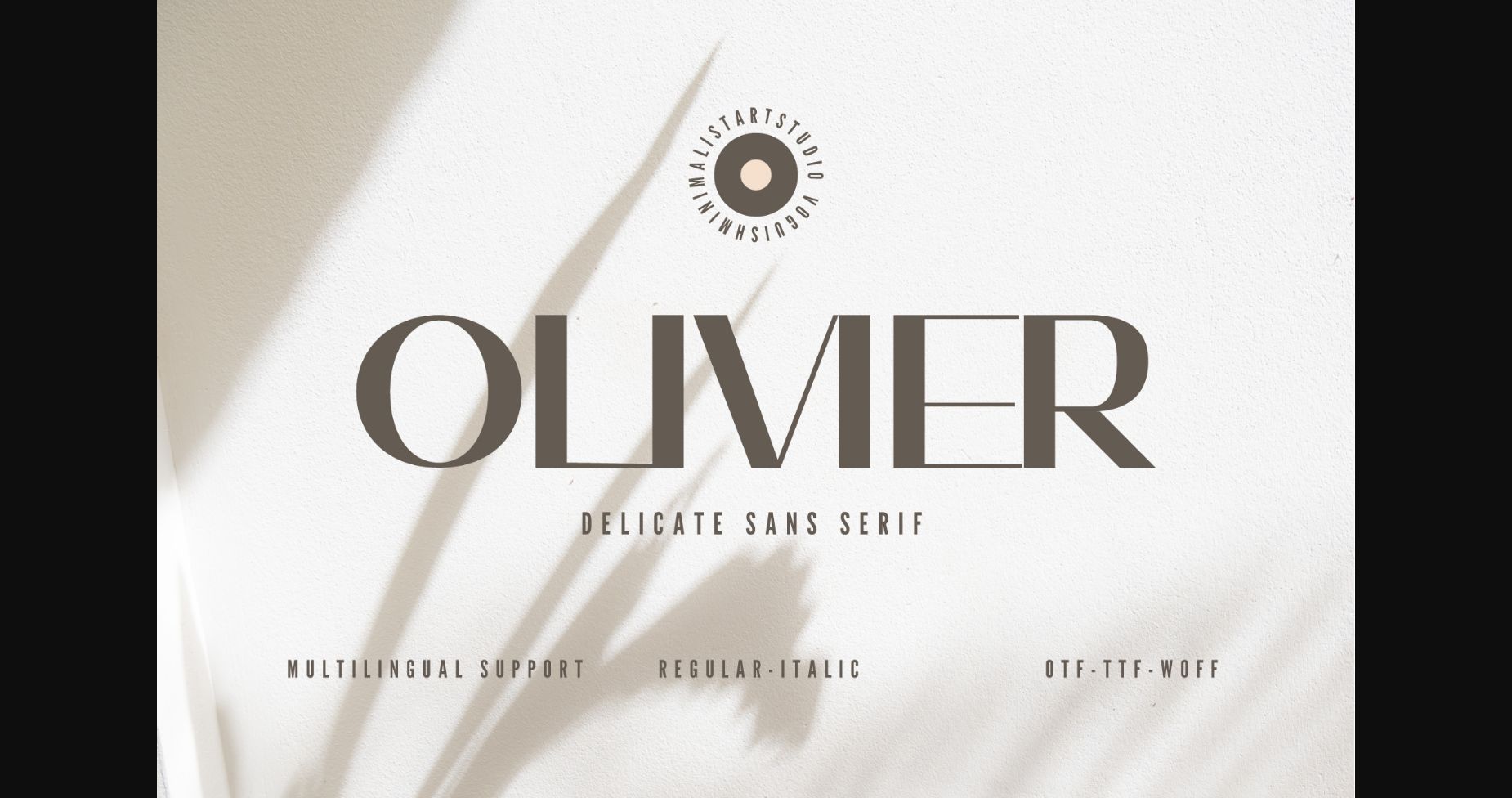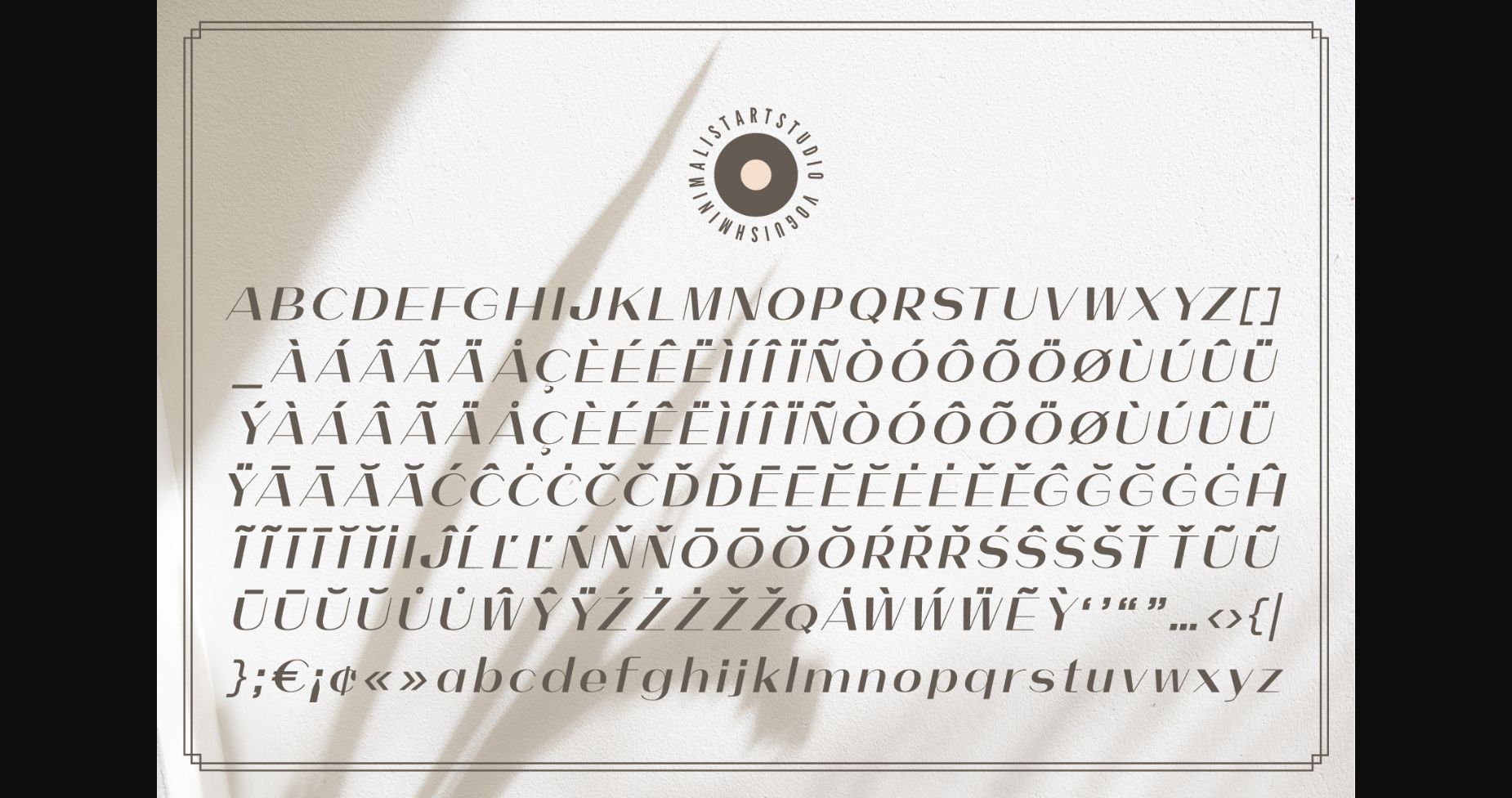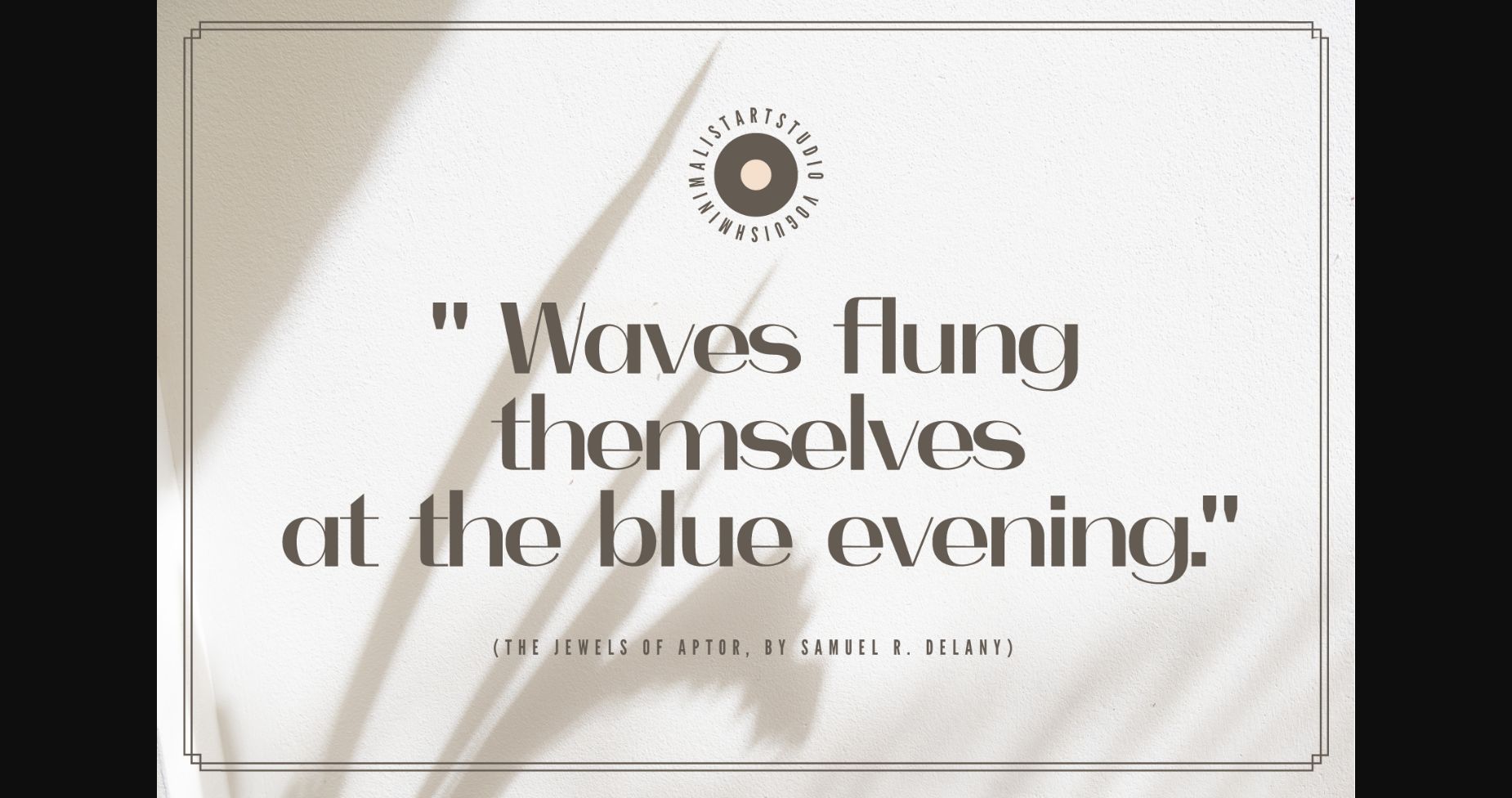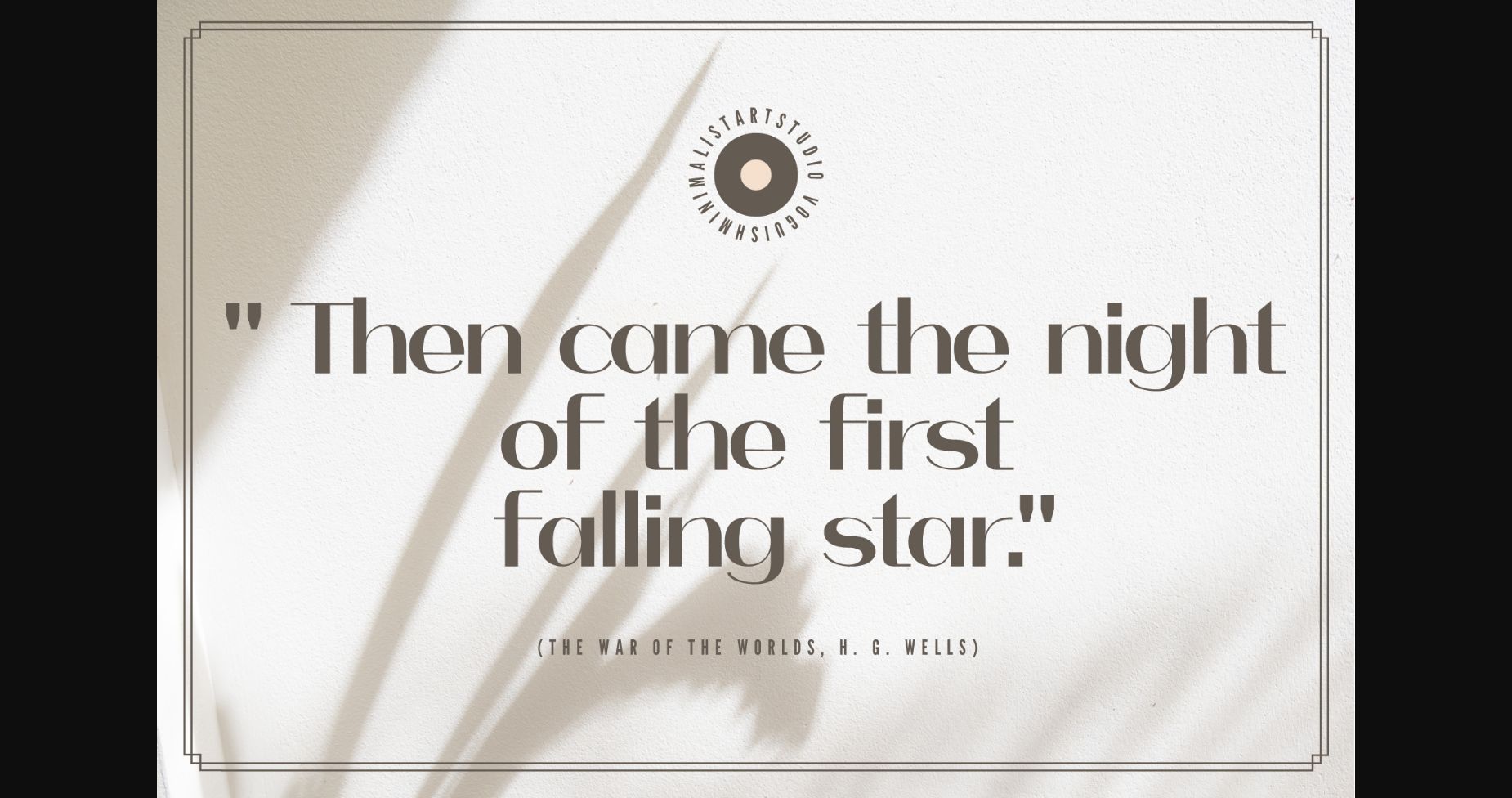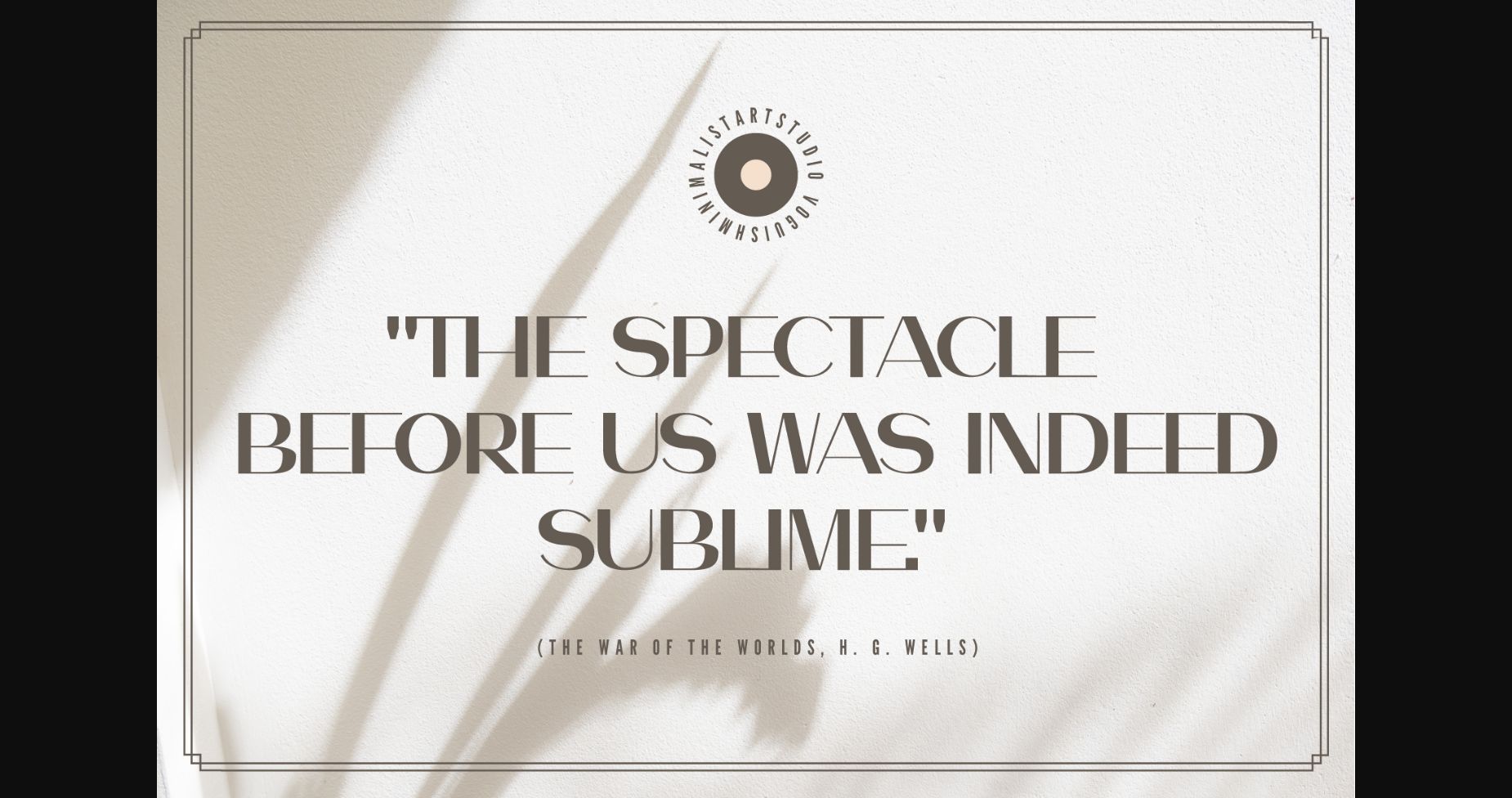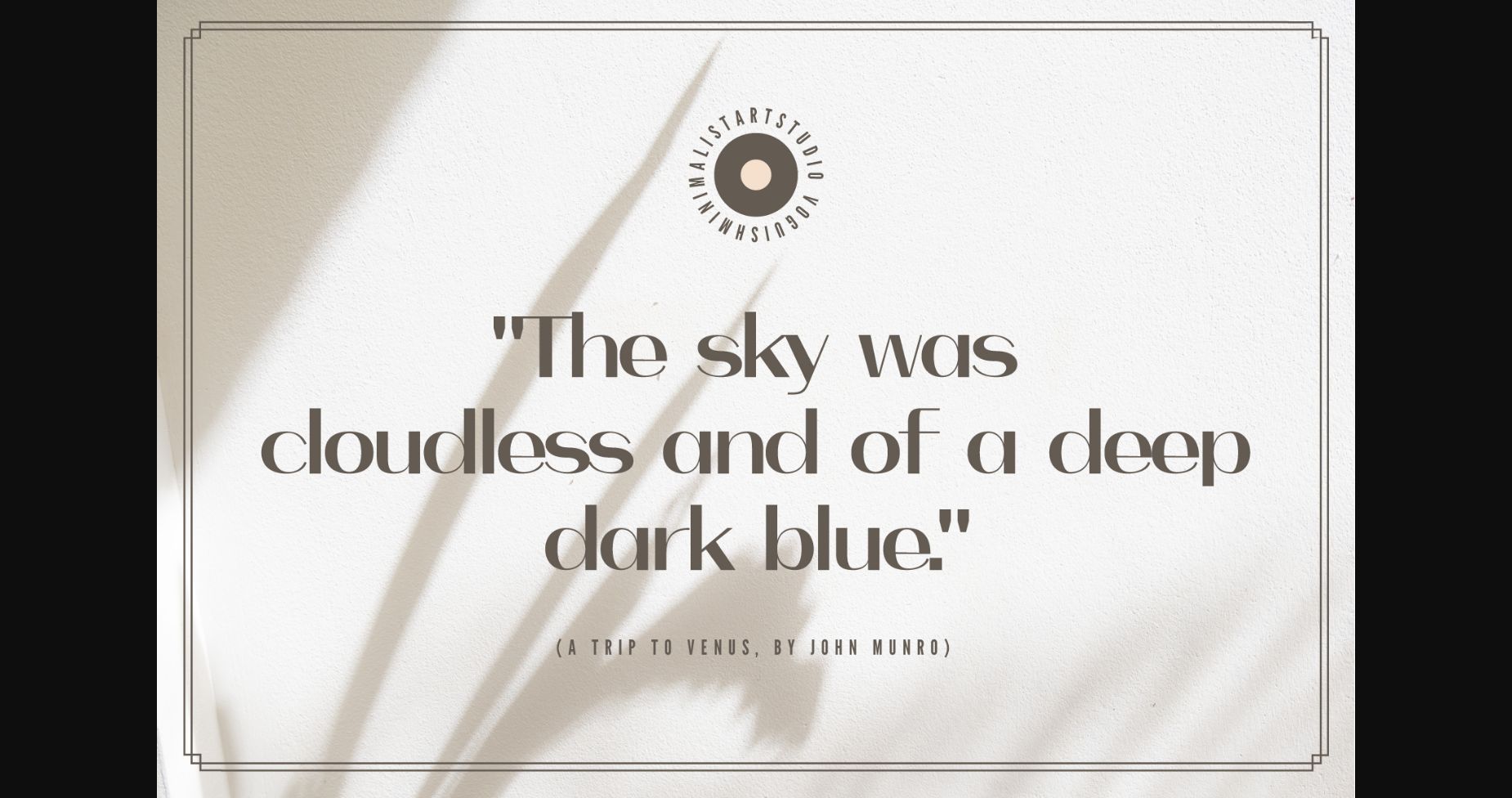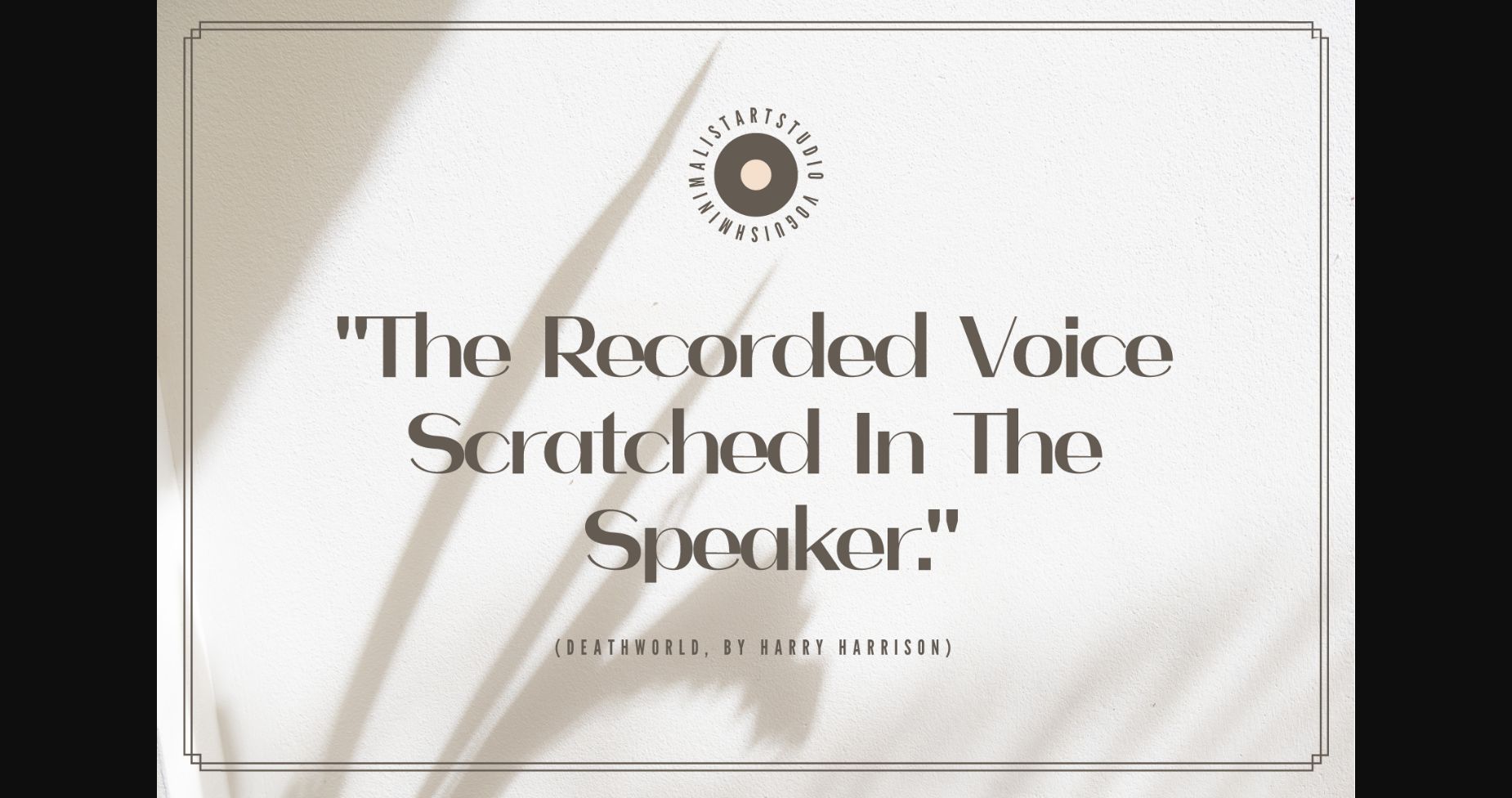
Olivier Font
About Olivier Font
Olivier is a refined, chic, and stylish sans serif typeface. It perfectly suits elegant design projects such as packaging design, cosmetics design, perfume, fashion, jewels, magazines, luxury goods, and many more. This font for sure adds value to any creation.